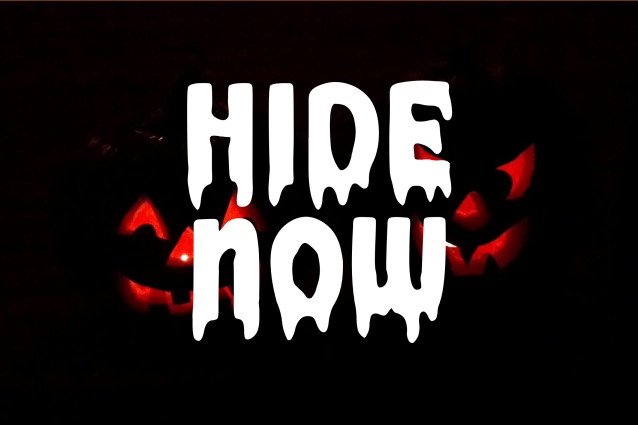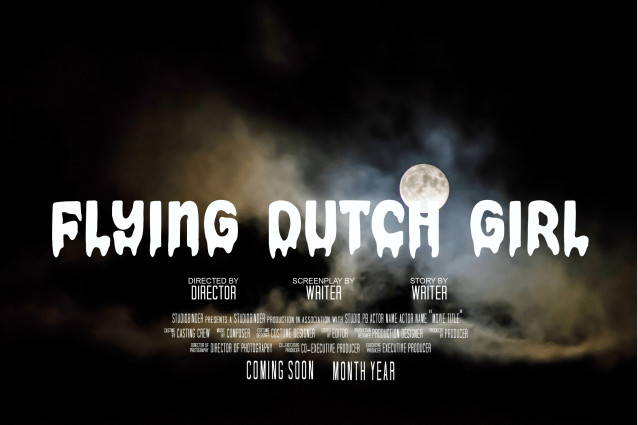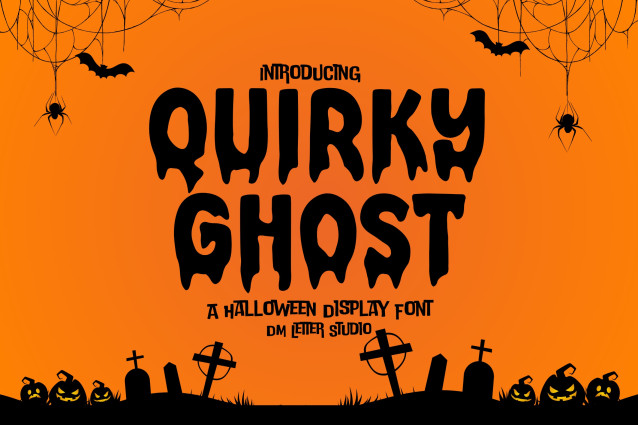
Quirky Ghost Font
Quirky Ghost Font is a fun and whimsical Halloween-themed display font designed to bring a light-hearted yet spooky vibe to your seasonal creations. With its quirky shapes and ghostly character design, this font is perfect for Halloween invitations, party decor, greeting cards, posters, and spooky branding. It adds a playful fright to any design while still keeping things cute and friendly.